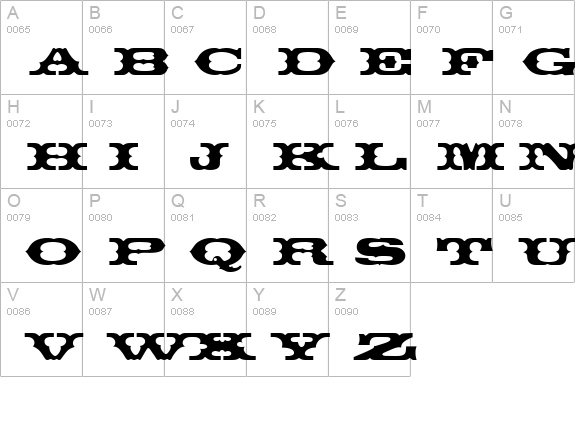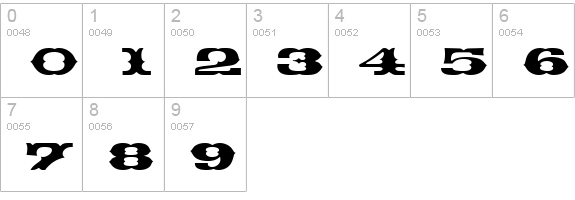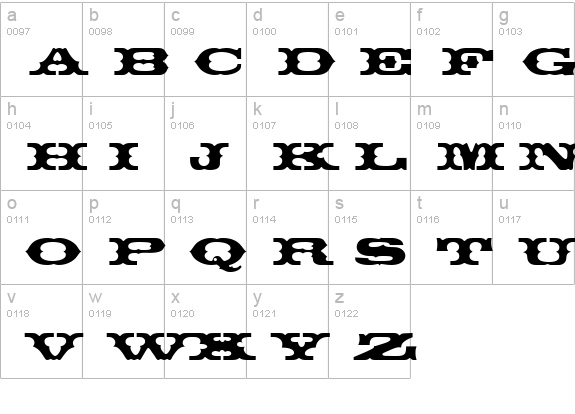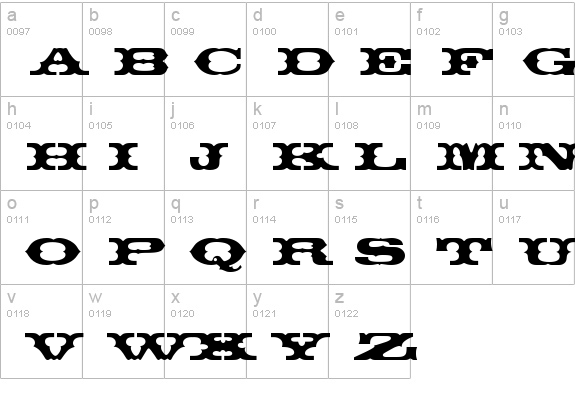
ThunderbirdDReg Font Details
ThunderbirdDReg is a captivating font that effortlessly combines elegance with a touch of modernity. Its sleek and stylish design is perfect for a wide range of projects, from branding and advertising to editorial and website design. With its clean lines and balanced proportions, ThunderbirdDReg exudes a sense of sophistication and professionalism. This font boasts a wide array of features, including a full set of uppercase and lowercase letters, numerals, punctuation marks, and special characters. Each character is meticulously crafted to ensure seamless readability and visual harmony. Whether used in large headlines or small body text, ThunderbirdDReg delivers exceptional legibility and clarity. One of the most appealing aspects of ThunderbirdDReg is that it is absolutely free. Yes, you read that right! This font is freely available to download at FontsMarket.com, making it accessible to designers, creatives, and enthusiasts alike. No longer do you have to worry about breaking the bank to enhance your projects with a high-quality font. Furthermore, ThunderbirdDReg is compatible with a variety of software applications, including Adobe Photoshop, Illustrator, InDesign, and Microsoft Word. This versatility allows you to seamlessly integrate this font into your existing workflow, saving you time and effort. Whether you're working on a personal project or a client assignment, ThunderbirdDReg is sure to leave a lasting impression. Its timeless design and availability as a free font make it an invaluable addition to any designer's toolkit. So why wait? Head over to FontsMarket.com and download ThunderbirdDReg today to elevate your designs to new heights.